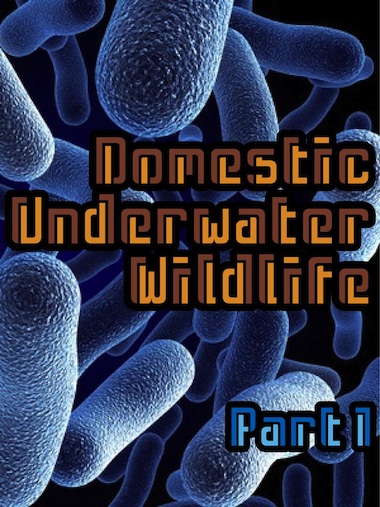
Nice and simple design. Excellent demo pic with blue bacteria. Some letters show 3D properties, well, sort of. 10/10
Gracias, compañero! I'm whit you: some letters have a very 3D side, something to explore now. This was made for trying to des-struct a little the glyphs, deceive the eye at last, you know.
I like it! 10/10
Great use of the font in the sample! That shows what the font is up to! Well done!